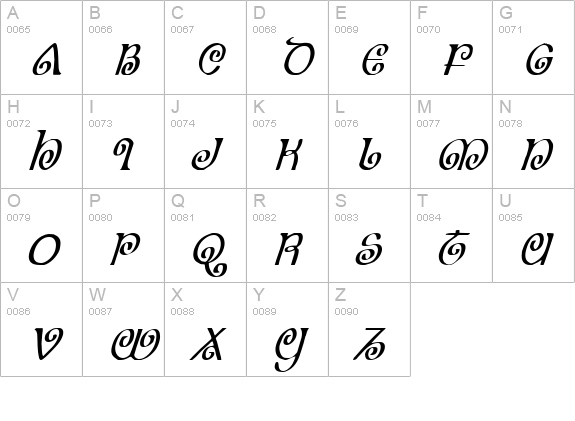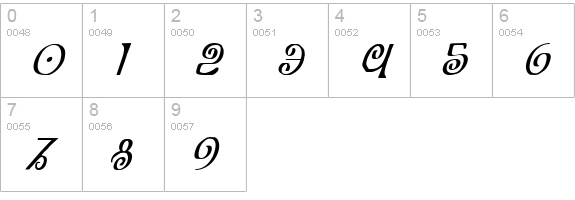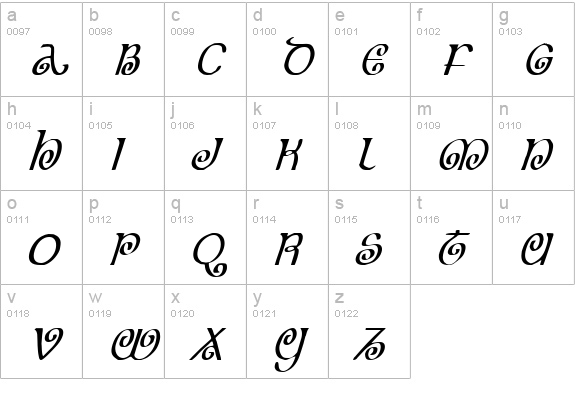
The Shire Condensed Italic Font Details
The Shire Condensed Italic is a distinctive, condensed-width, italic variant in the The typeface family \xE2\x80\x94 well suited to design and typography projects.
The Shire Condensed Italic font embodies elegance and sophistication with its sleek and modern design. Its slanted, condensed style adds a touch of flair to any project, making it the perfect choice for adding a touch of class to your designs. The flowing curves and delicate serifs of this font exude a sense of refinement and style, ideal for creating eye-catching headlines or elegant invitations. Not only does The Shire Condensed Italic font offer a sophisticated look, but it also brings a sense of professionalism to any design. Whether you're working on a branding project, a website design, or a printed publication, this font will elevate your work and leave a lasting impression on your audience. Best of all, The Shire Condensed Italic font is available for free download at FontsMarket.com. This means you can easily access this beautiful font and incorporate it into your projects without any hassle. Don't miss the opportunity to enhance your designs with the timeless elegance of The Shire Condensed Italic font – download it today and take your creations to the next level.